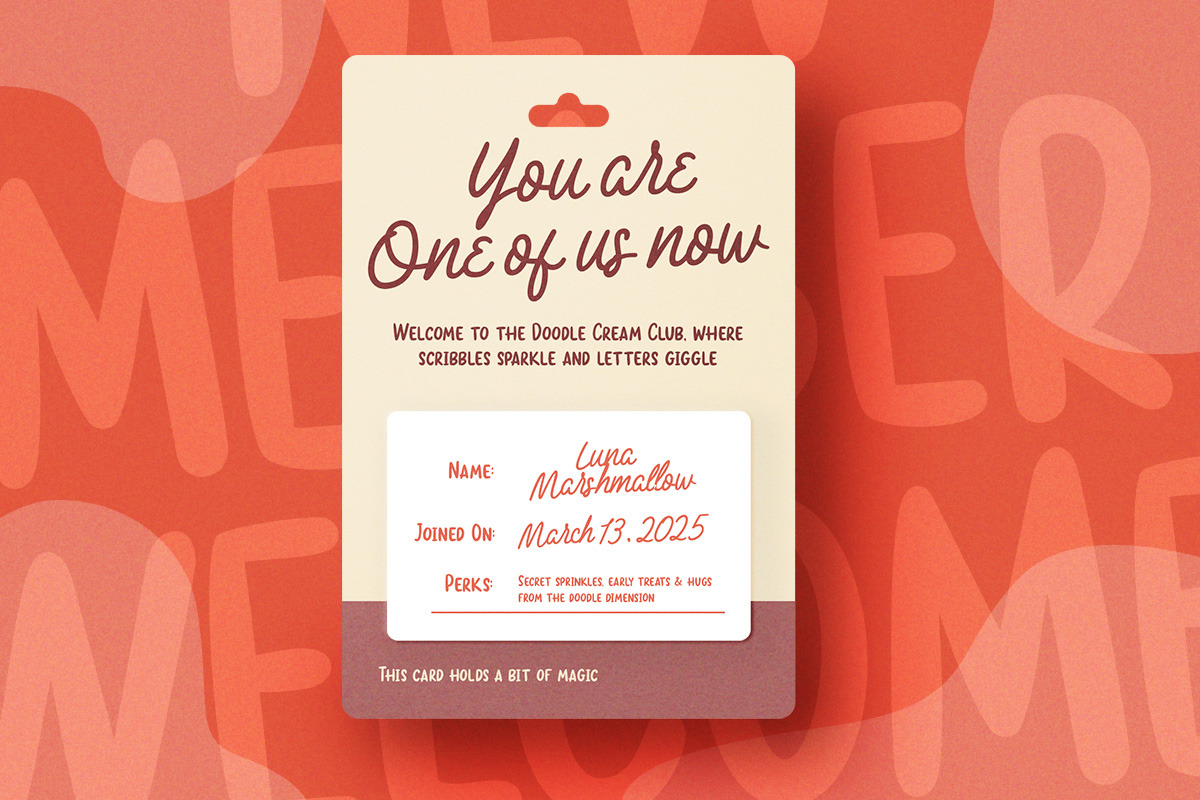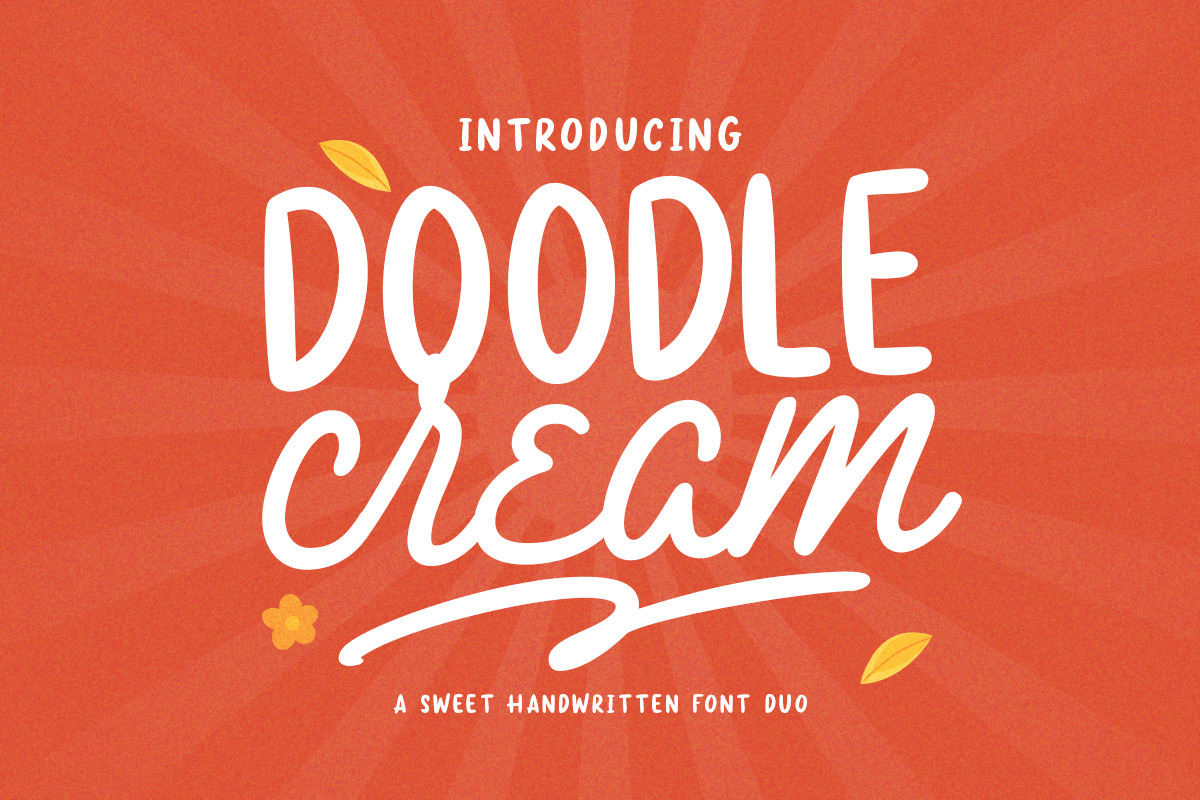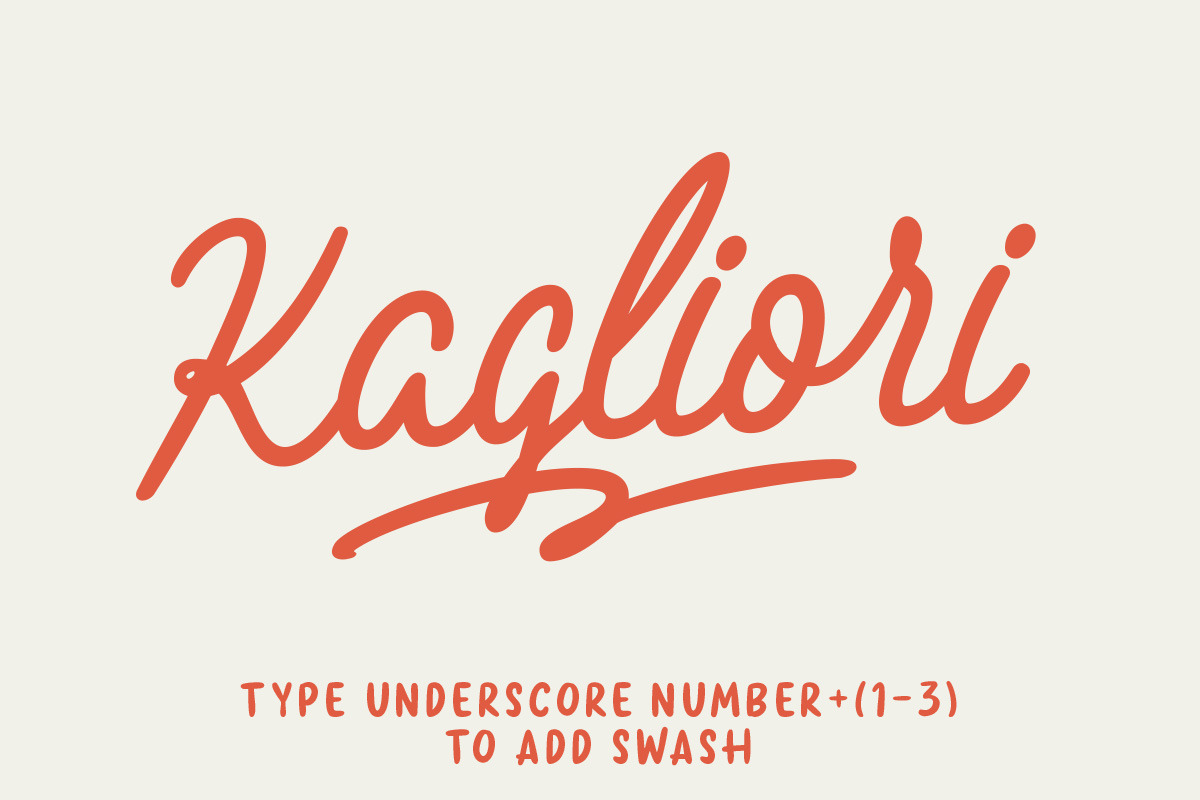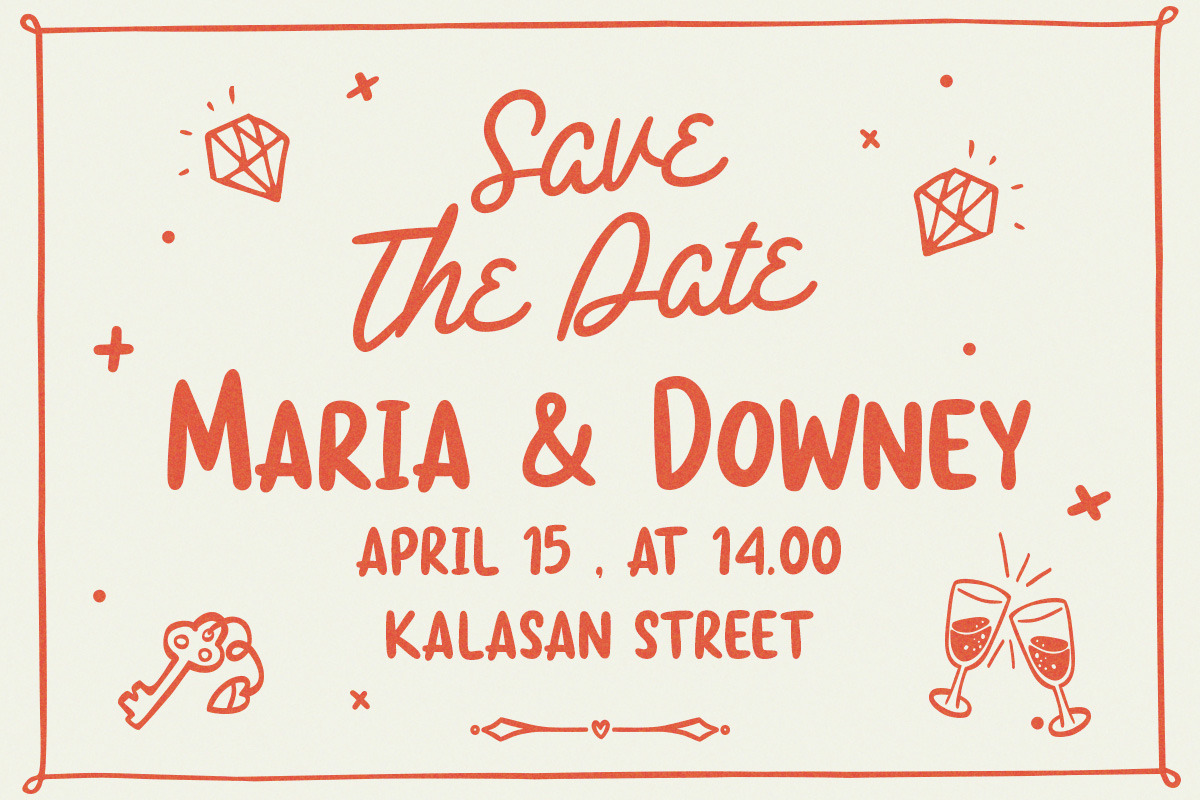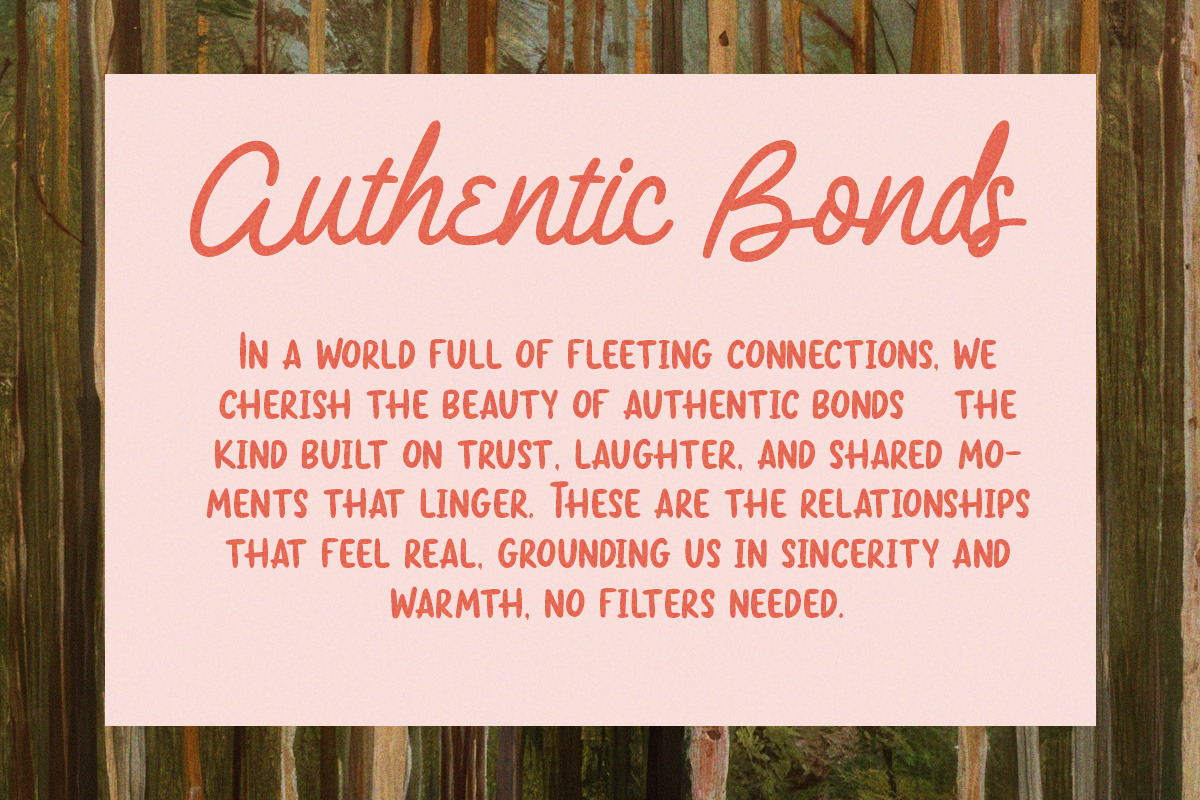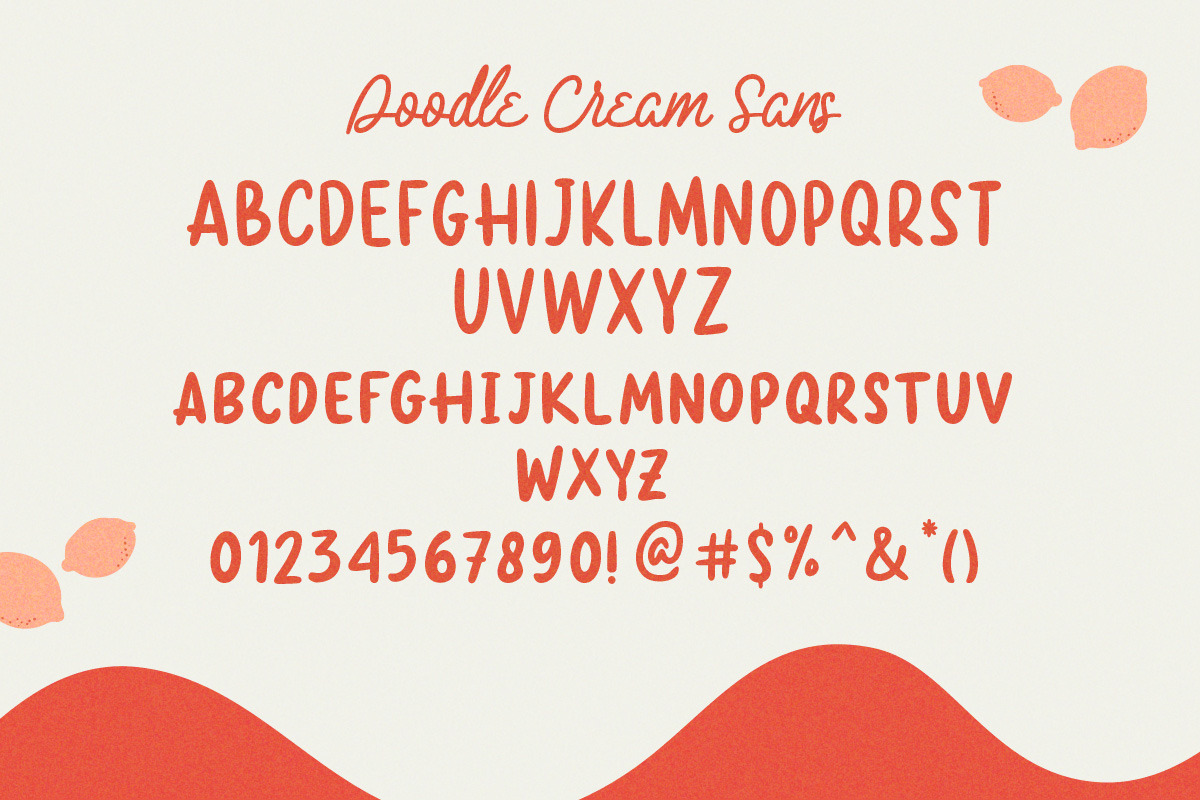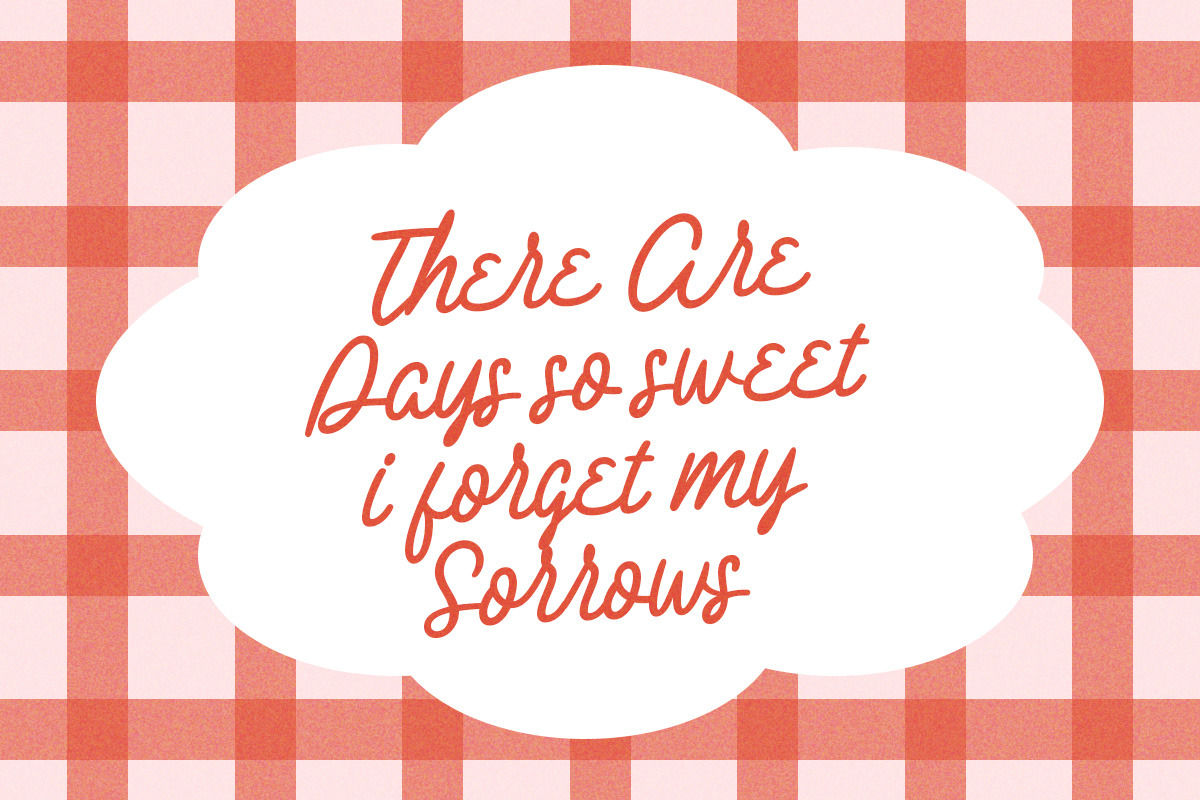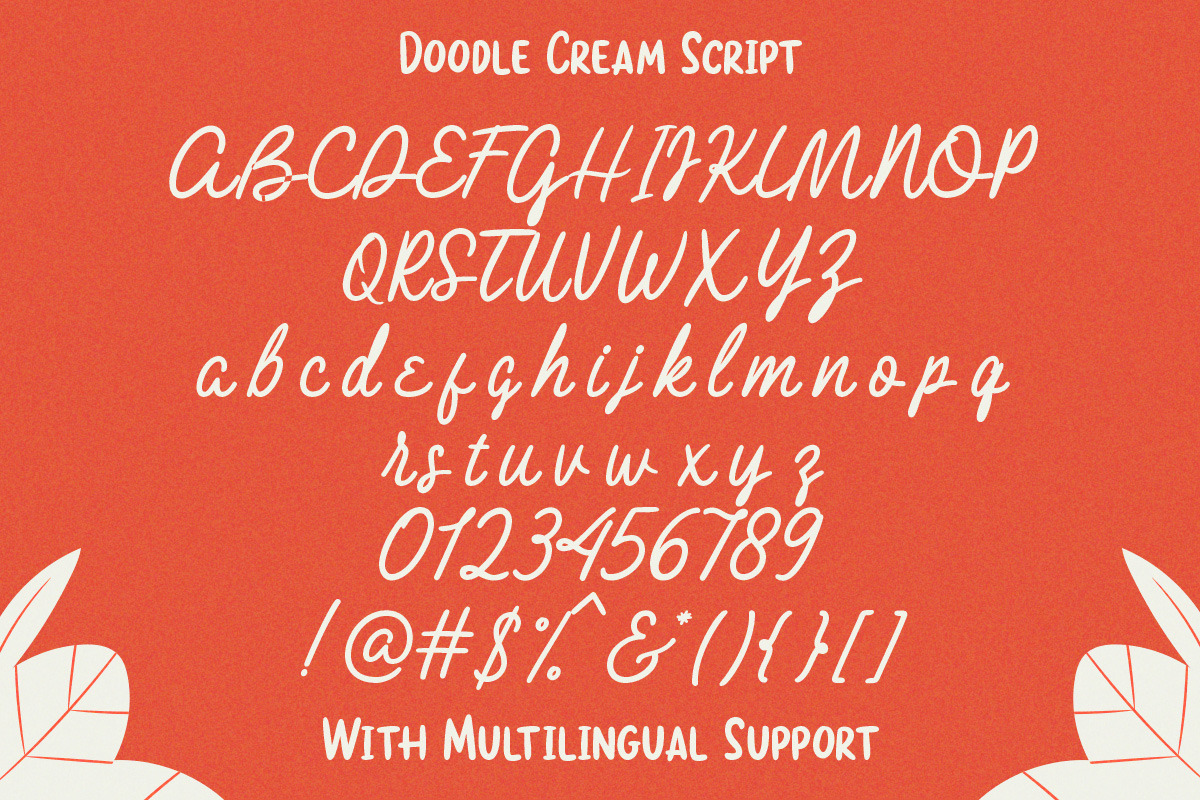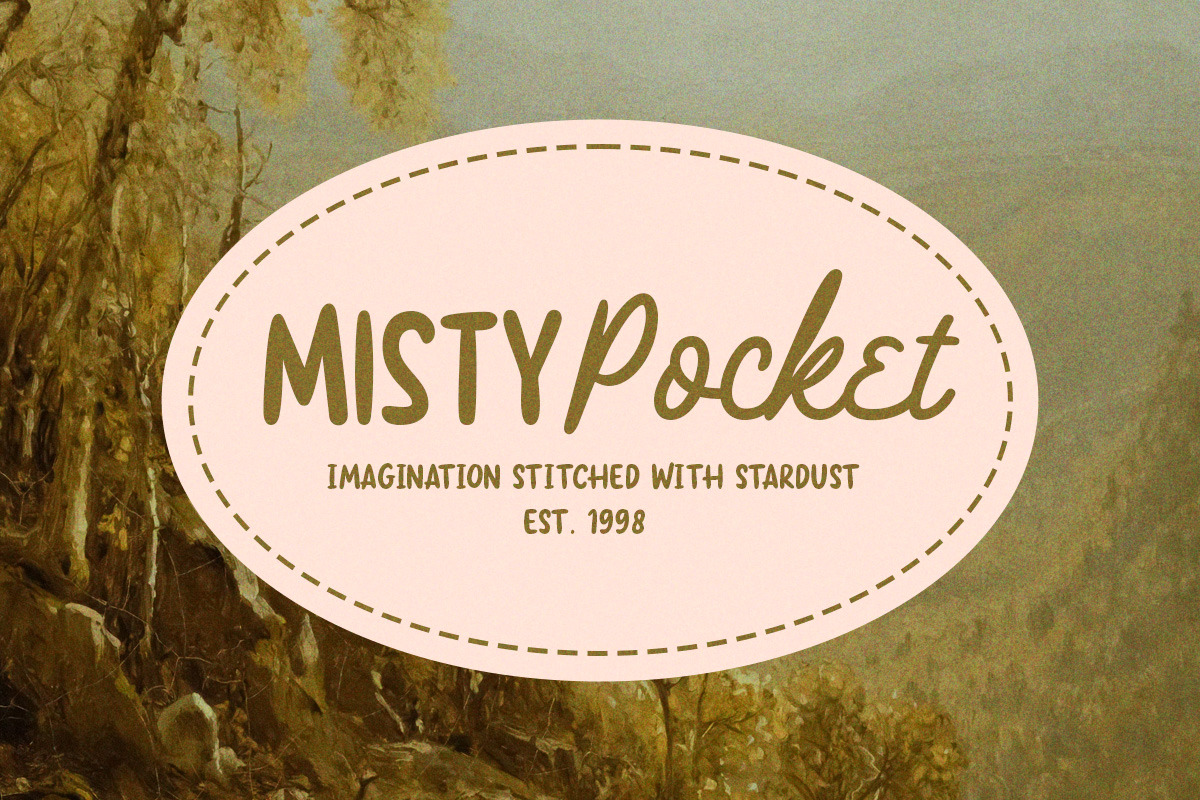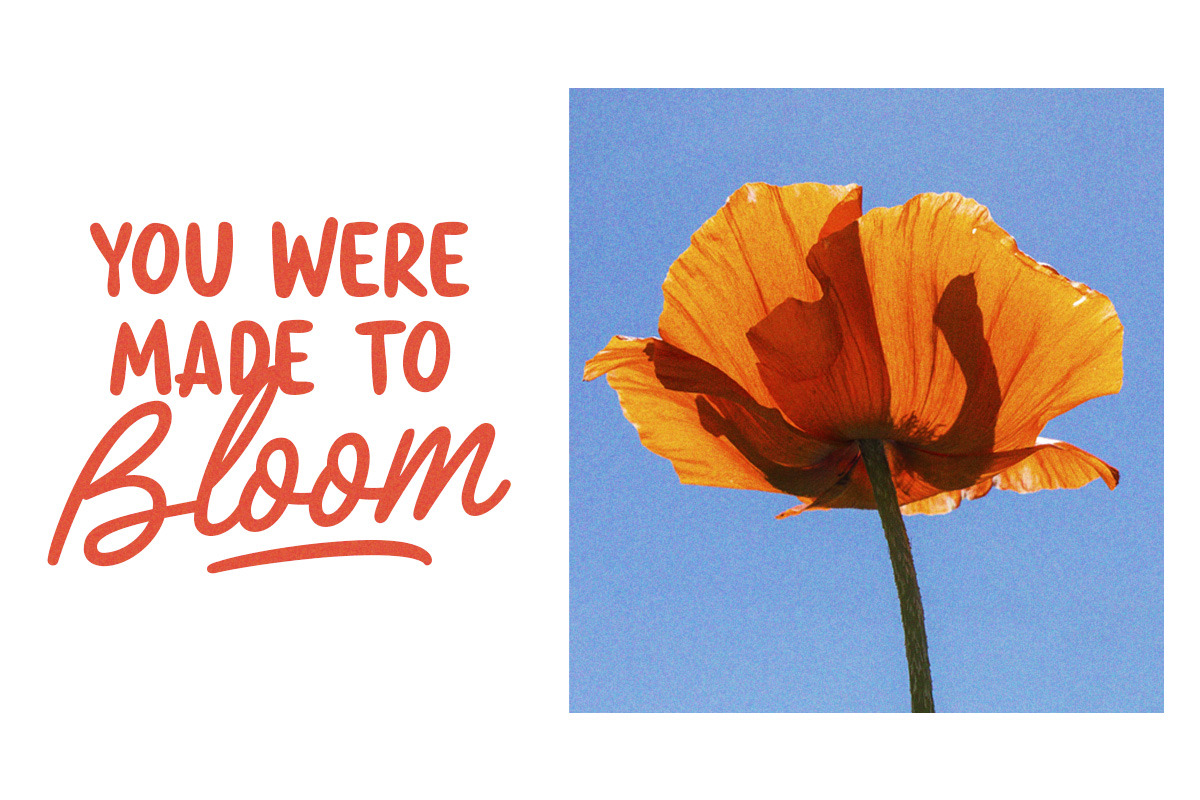
Doodle Cream - Handwritten Font Duo
Doodle Cream is a sweet handwritten font duo featuring a playful sans and a smooth script style. This charming typeface brings a fun, friendly, and cheerful vibe, making it perfect for kids-themed designs, sweets and bakery branding, or any creative project that aims to be lighthearted and inviting. With its soft strokes and whimsical doodle touch, Doodle Cream adds a warm and joyful personality to your visuals.